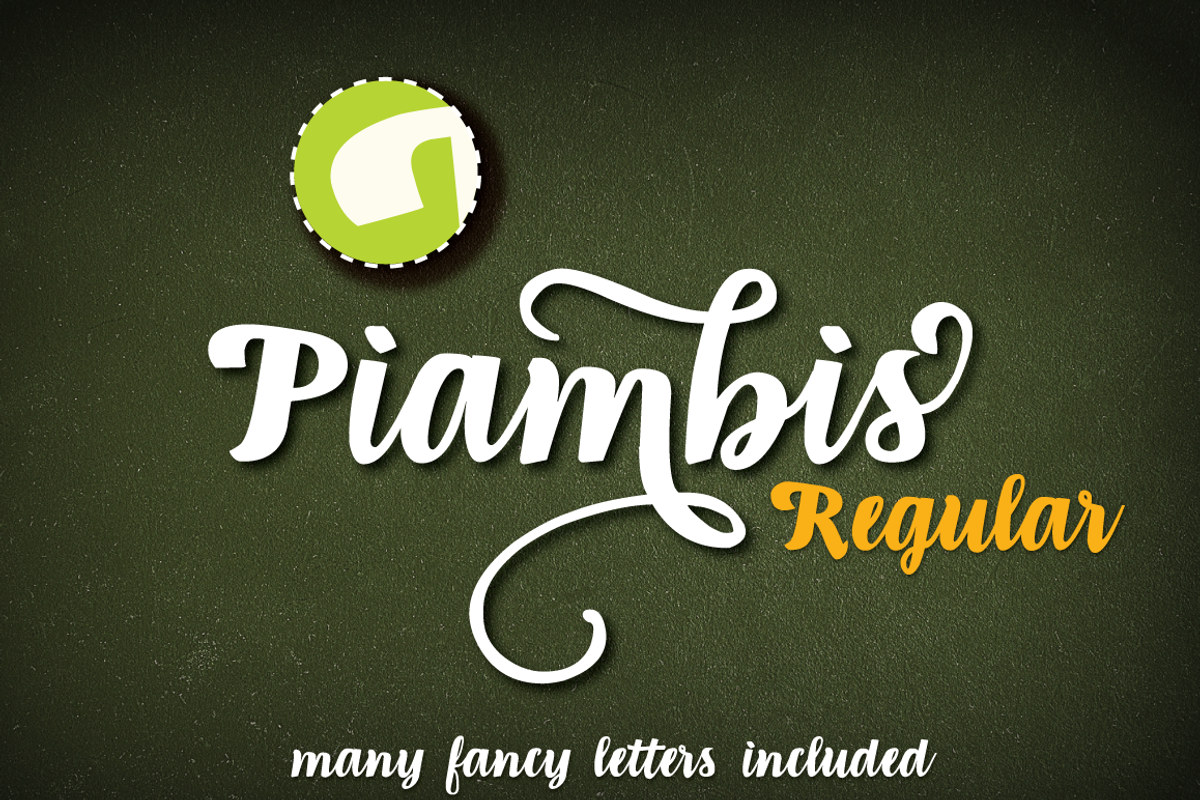
Piambis Open Type Font Free Download is a modern and artistic typeface that blends elegance with versatility, making it a must-have for creative professionals. Please note, you are required to purchase this font for commercial use. It is available for free download for testing and personal projects only.
Featuring smooth curves, stylish ligatures, and OpenType features, Piambis is ideal for branding, wedding stationery, magazine layouts, packaging, and more. It brings a sense of class and individuality to every project, with a perfect balance between readability and visual flair.